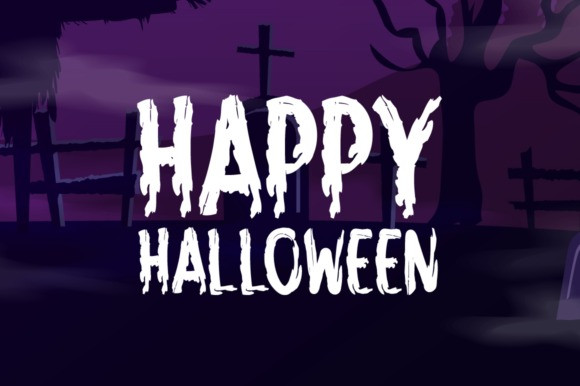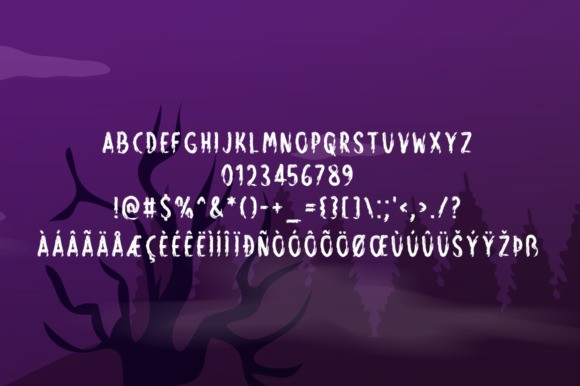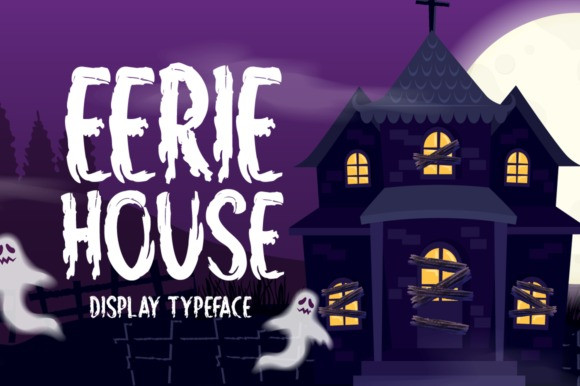
Eerie House Display Font
Eerie House is a creepy and dark looking display font. It is perfectly suitable for any Halloween-related project or crafty idea! The only limit is your imagination.